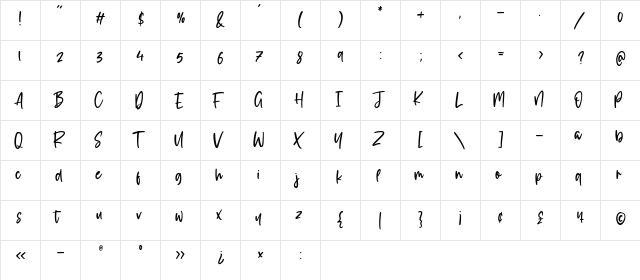
musicalina Regular
| Designer | Balpirick Studio |
Design Context for musicalina Typeface
musicalina is a composed and adaptable typeface that performs quietly and consistently across a wide range of design contexts.